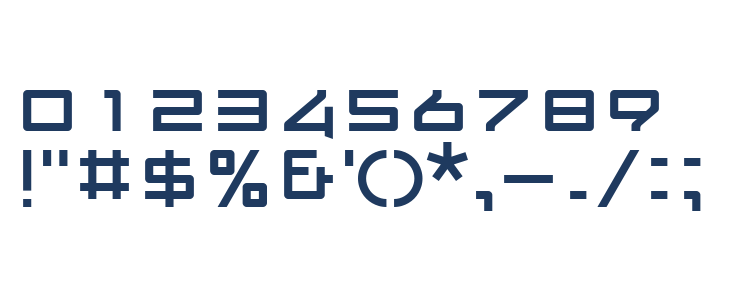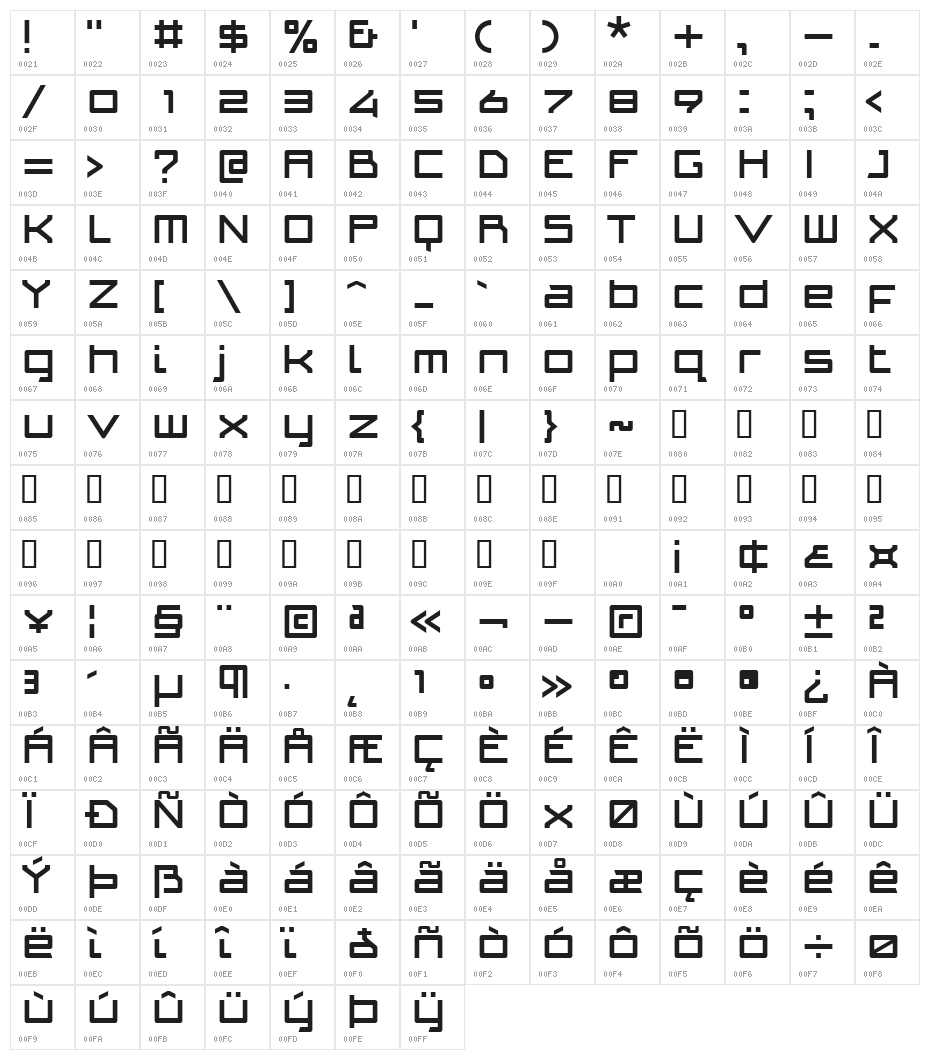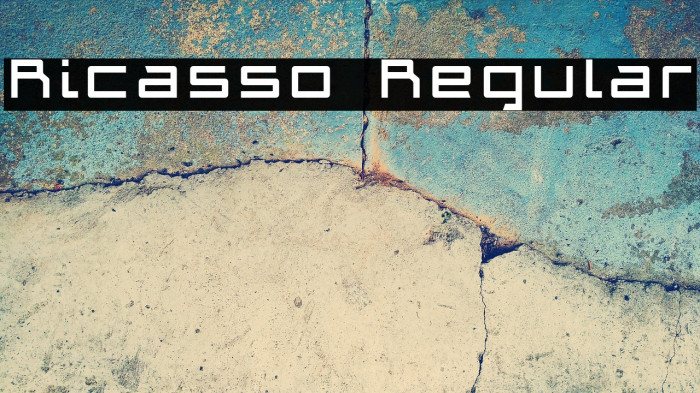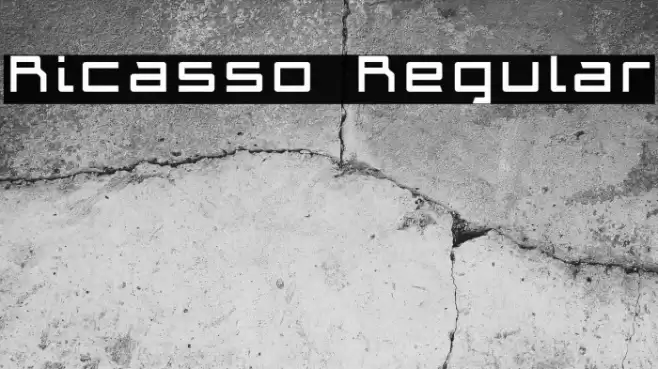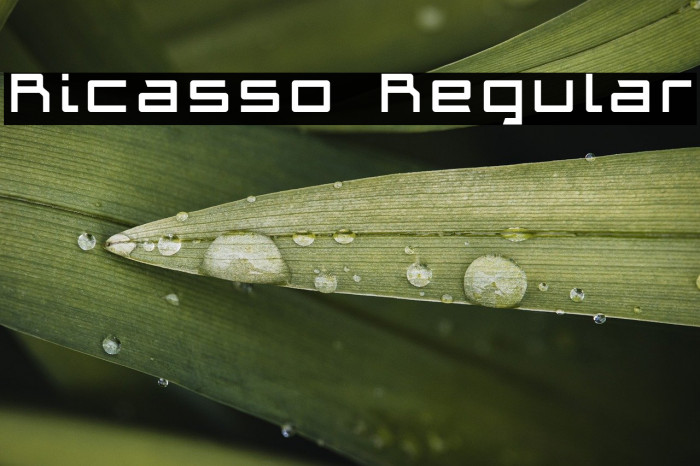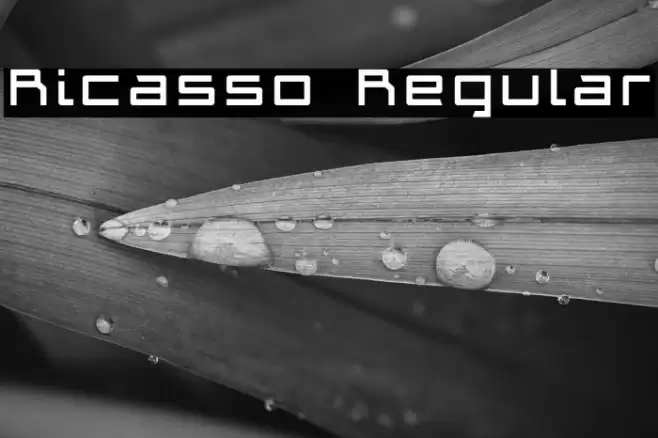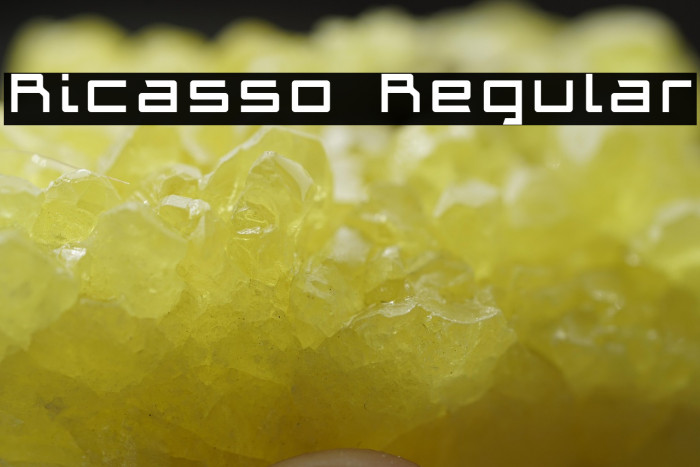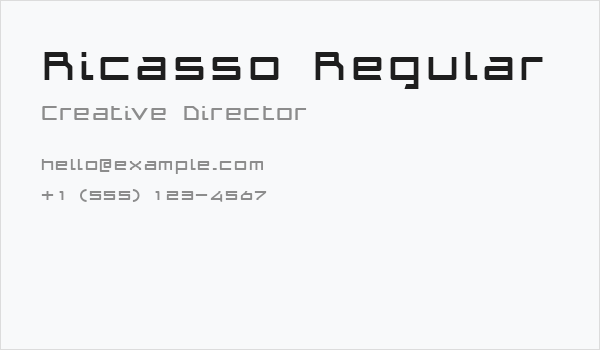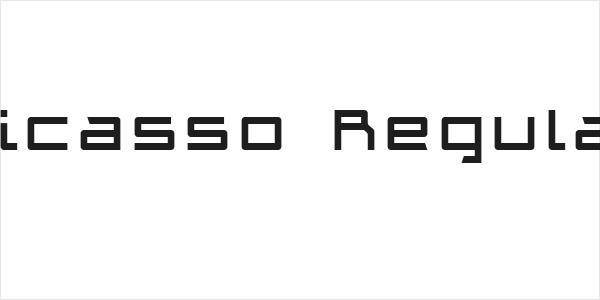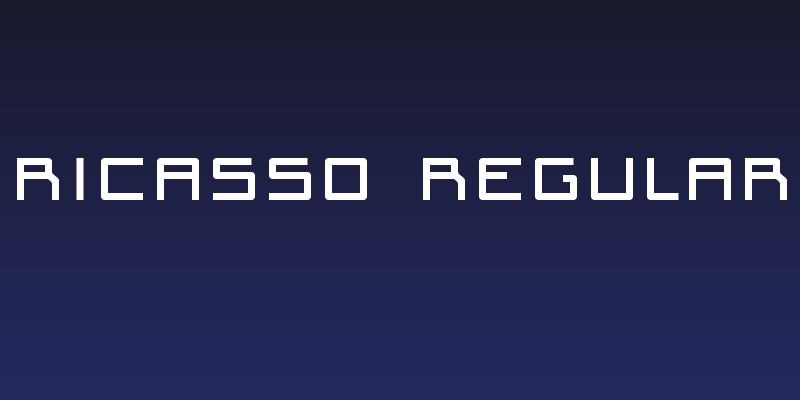
Ricasso Regular Font
Ricasso Regular Description
This font features a geometric and modern design with a strong, angular structure. Each character is crafted with precision, showcasing a uniform stroke width that gives it a clean and futuristic appearance. The uppercase letters are bold and commanding, while the lowercase letters maintain a consistent style that complements the overall aesthetic. The numerals are distinct and easy to read, making them suitable for various applications. Special characters are designed with the same attention to detail, ensuring a cohesive look across all glyphs. The font's design is ideal for projects that require a contemporary and tech-savvy feel.
| Use Case | Headlines, Logos, Digital Interfaces |
| Proposed Projects | Ideal for technology branding, digital interfaces, modern advertising, and futuristic designs. |